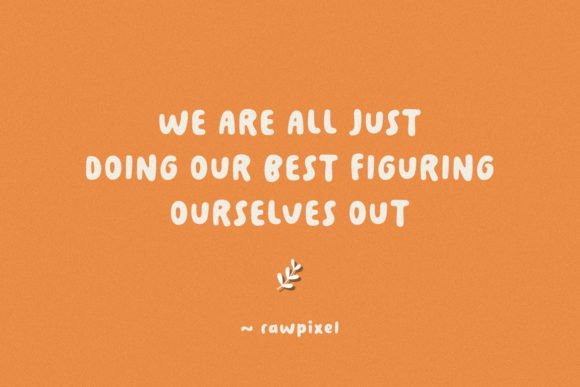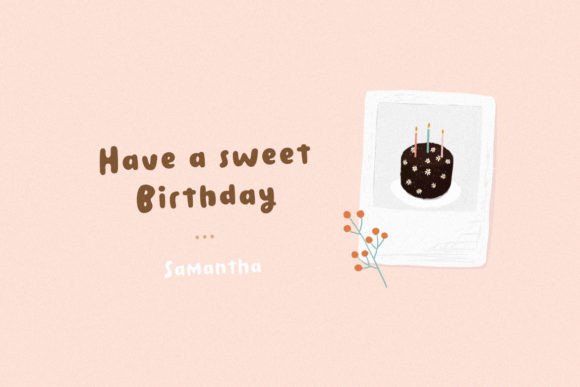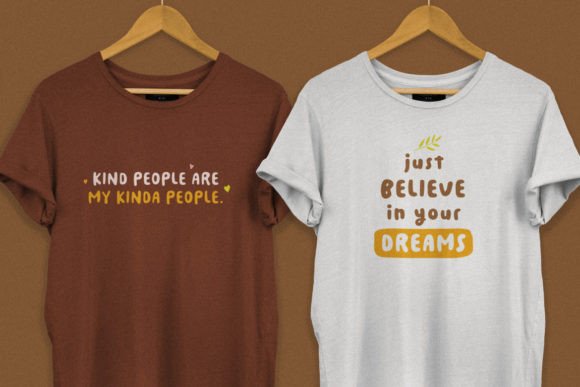
Introduction to Great Notes Font
Have you ever been in the middle of a creative project, and a spark of inspiration hits you? Perhaps it’s the perfect phrase for a wedding invitation, a catchy tagline for a brand, or a beautiful quote for a canvas. Whatever it is, you know exactly what you need – a font that captures the essence of your idea and brings it to life. That’s where the Great Notes Font comes in – a simple, modern, and playful handwritten sans serif font that’s perfect for designers looking to add a personal touch to their work.
This high-quality font is a valuable design resource for anyone looking to create something truly special. With its transparent background and clean lines, it’s a free download that’s sure to elevate any creative project. Whether you’re a seasoned designer or just starting out, the Great Notes Font is a must-have in your toolkit – and we can’t wait to show you why.
- Designed with a clean and modern aesthetic, featuring a clear and legible font style.
Honest Review: Great Notes Font
As a designer, I’m always on the lookout for high-quality design resources that can elevate my creative projects. Recently, I had the chance to try out the Great Notes Font, and I’m excited to share my honest review.
What works well: ✨ The font is incredibly versatile, making it perfect for a wide range of creative projects. From digital notes to printed materials, the Great Notes Font is sure to impress. The transparent background feature is also a game-changer, allowing for seamless integration with any design.
What doesn’t work so well: ⚠️ One limitation I found was that the font can be a bit too casual for formal projects. If you’re looking for a font to use for a professional presentation or brochure, you may want to consider something a bit more formal.
Overall, I’m impressed with the Great Notes Font and would definitely recommend it to designers looking for a high-quality, versatile font for their creative projects.
The Great Notes Font is perfect for creating presentations, documents, and social media graphics. Its elegant design makes it ideal for use in corporate, educational, and creative projects.